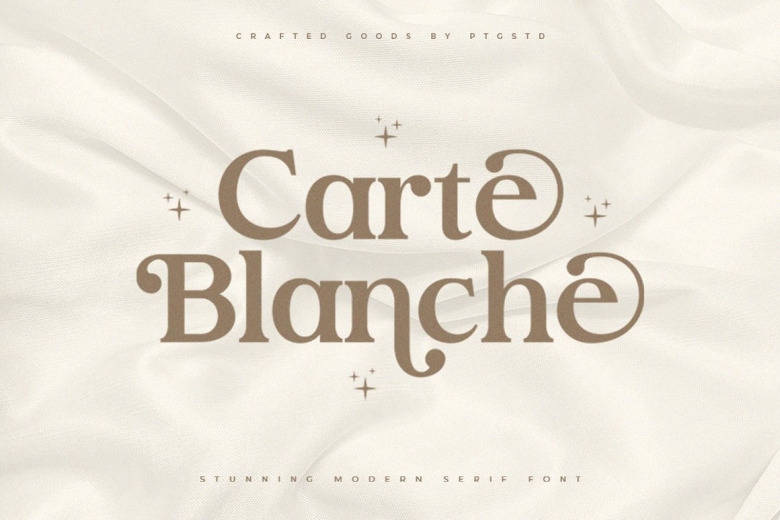
Carte Blanche Font
Carte Blanche is a high-quality Serif Font with a contemporary flair and first-class form, based on its traditional calligraphy. This font, that combines each bold and thin characteristics in itself appears sort of a balanced and various option created with the aim of creating your things look a lot of esthetic.
Carte Blanche Serif Font